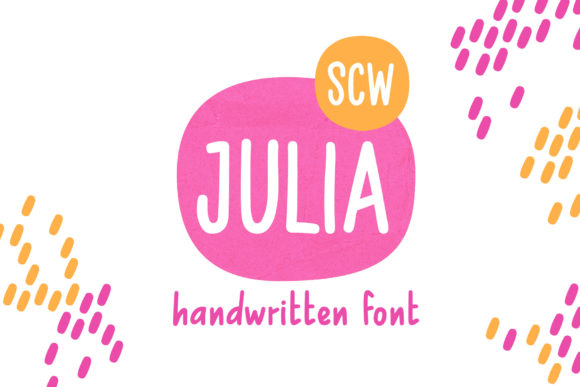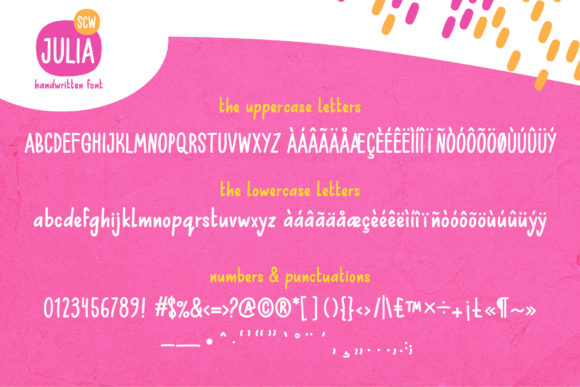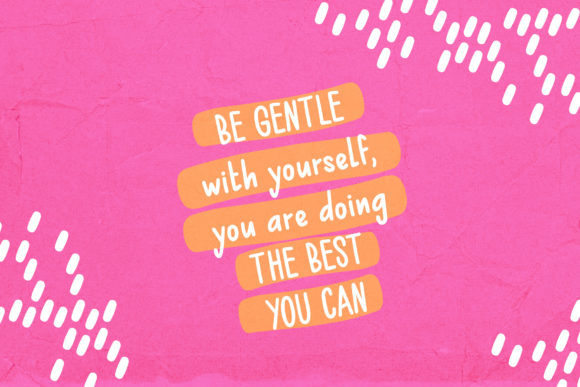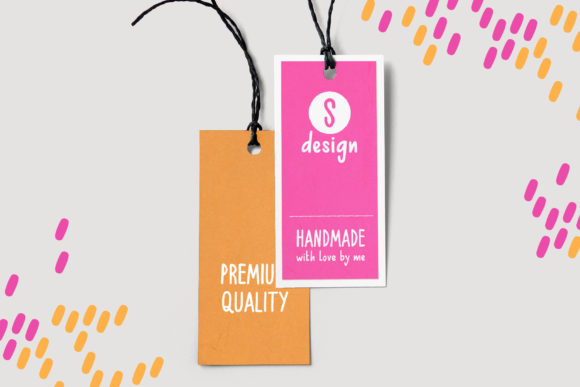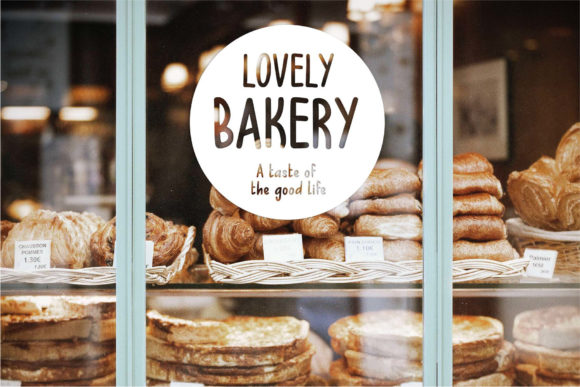
Julia Font
About Julia Font
Julia is a clean and natural handwritten font. Its informal style and casual vibe will make this font a go-to choice for each of the creations that require a relaxed touch.